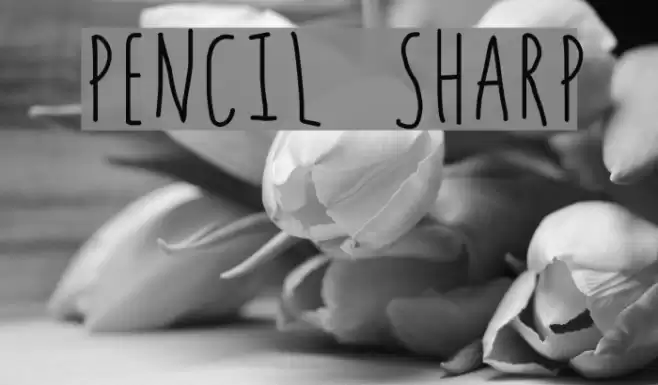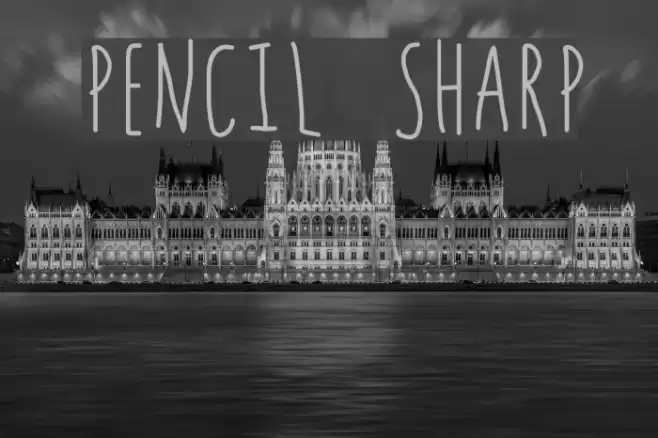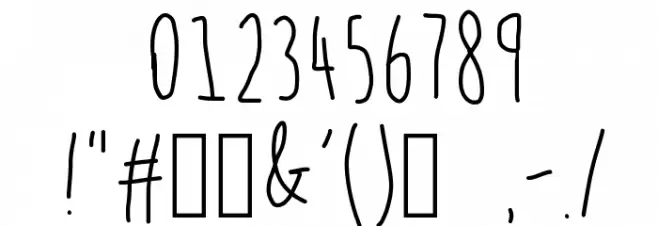
PENCIL SHARP Font
PENCIL SHARP Description
This font features a playful and informal handwritten style, characterized by its tall, narrow letters and slightly irregular strokes. The uppercase and lowercase letters share a consistent height, contributing to a cohesive look. The numbers and special characters maintain the same whimsical quality, making the font suitable for creative projects. The strokes are uniform in thickness, providing a clean and legible appearance. The overall design exudes a casual and friendly vibe, perfect for adding a personal touch to any text.
A playful, handwritten font with tall, narrow letters and a casual style from Uncategorized fonts.
- Proposed Projects: Ideal for greeting cards, children's books, informal invitations, and creative branding.
- Overall Style: Casual
- Use Case: Headlines, Logos, Informal Text